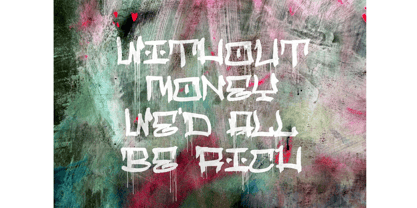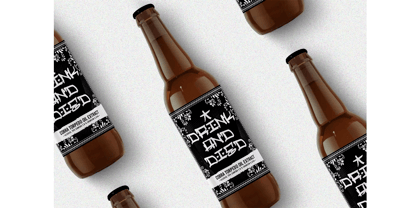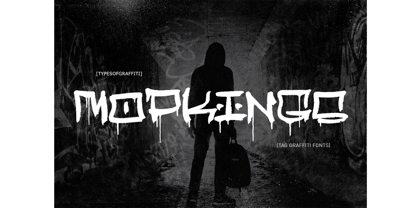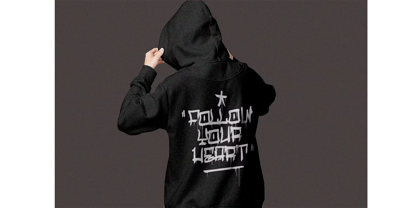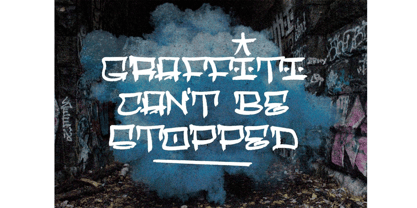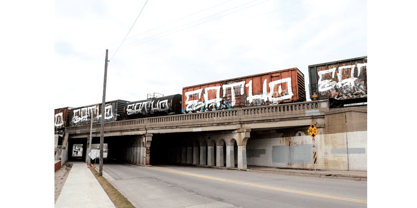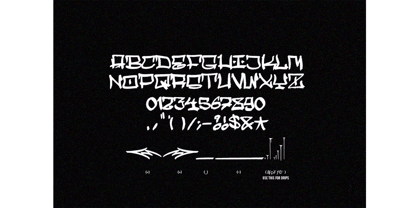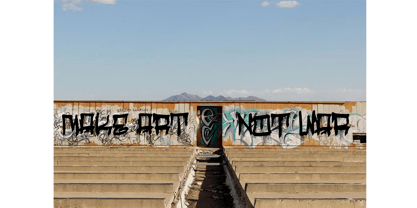
Mop Kings
by Types of Graffiti, LLC
The Mop Kings Font Family was designed by Cipto Bagus Prakarso and published by Types of Graffiti, LLC. Mop Kings contains 1 styles. More about this family
Graffiti writers often use big markers to tag their names, creating large letters with drips on signs, walls, trains, and cars, which is considered a serious form of vandalism. But now, you can create that same look without the risk of being caught by the police with our "Mop Kings" fonts. These fonts are ideal for street art, graffiti, hip-hop, and urban design aesthetics.
Designers: Cipto Bagus Prakarso
Foundry: Types of Graffiti, LLC